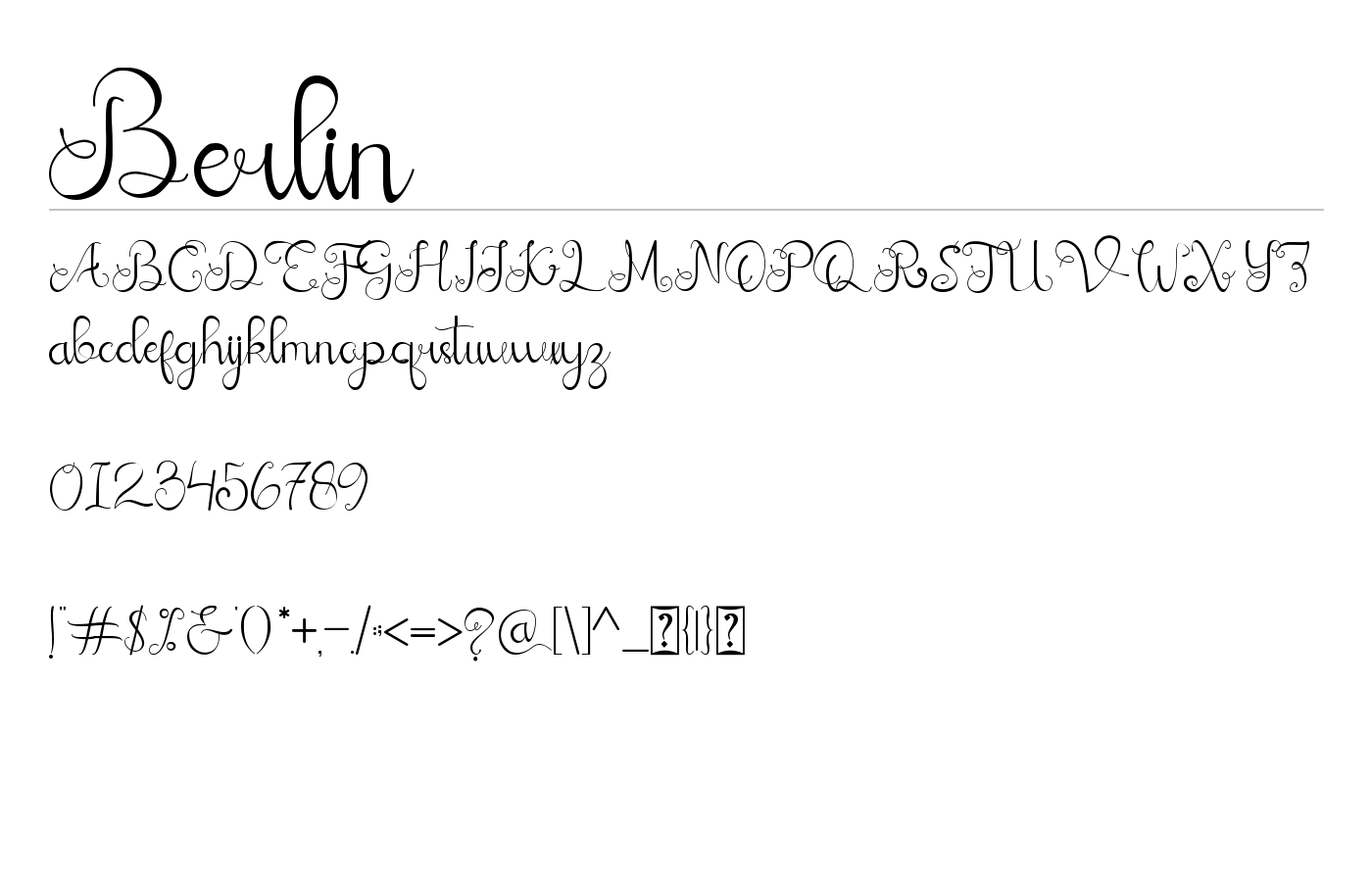
Berlin is a delicate script font with a light, airy feel, featuring elegant and intricate swirls that give it a whimsical yet refined personality. Its thin, consistent strokes and tall, narrow letterforms make it perfect for decorative uses such as invitations, greeting cards, and feminine branding where a touch of sophistication and charm is desired. This font shines in headline or display settings where its delicate details can be appreciated without sacrificing readability.
Berlin Font
About Berlin Font
| Font family | Berlin Font |
| Designer | Getstudio 2021 |